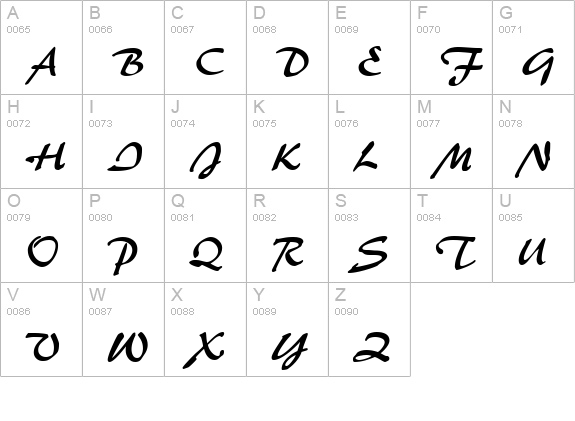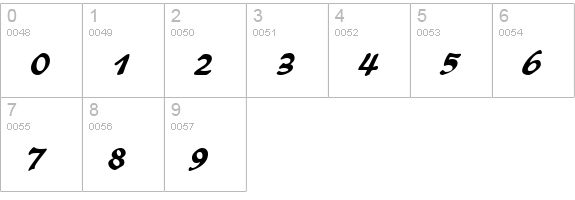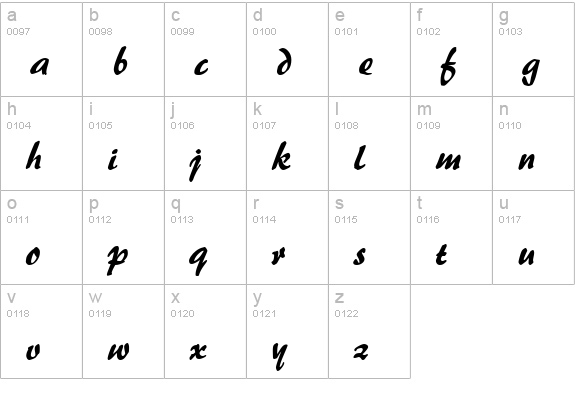
Brush Flash Font Details
Introducing Brush Flash font, a dynamic and energetic typeface that captures the essence of artistic expression with its bold brush strokes and modern flair. This versatile font is perfect for a wide range of design projects, from posters to branding to social media graphics. Brush Flash font is designed to make a statement and leave a lasting impression. Its edgy yet sophisticated style adds a touch of creativity and personality to any design. Best of all, Brush Flash font is available for free download at FontsMarket.com. Don't miss out on this opportunity to add a touch of excitement and creativity to your projects with this stunning font. Download Brush Flash today and let your creativity shine!